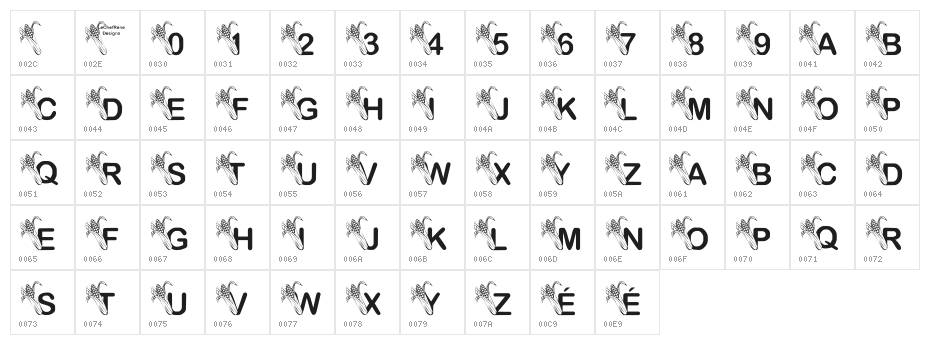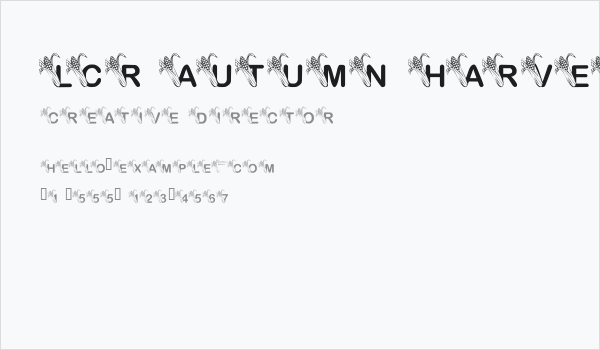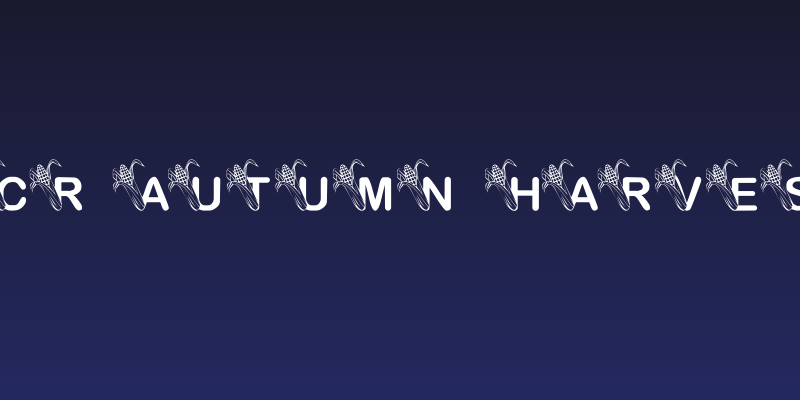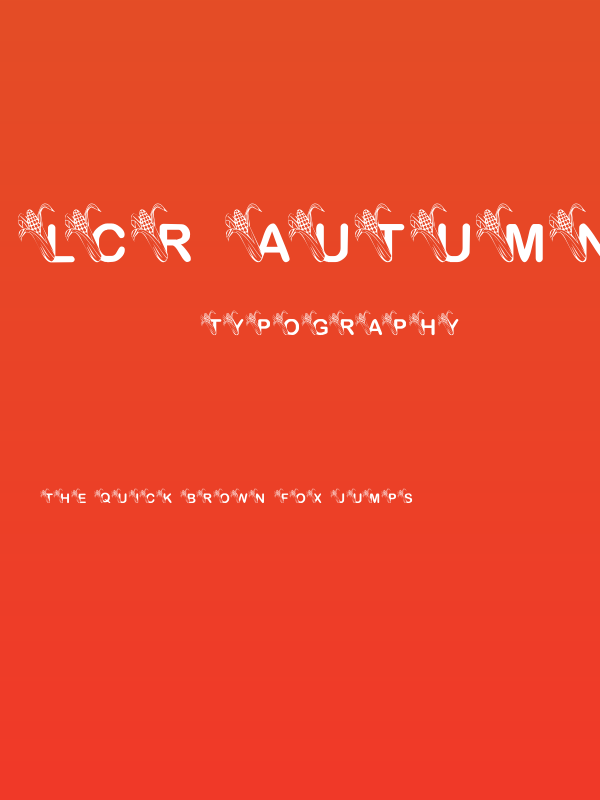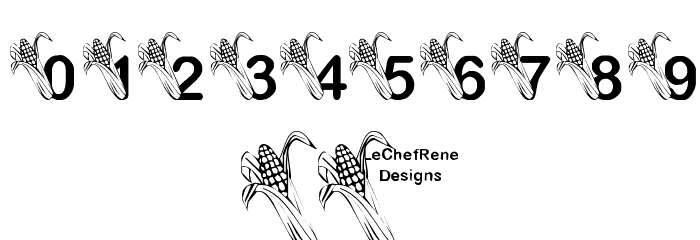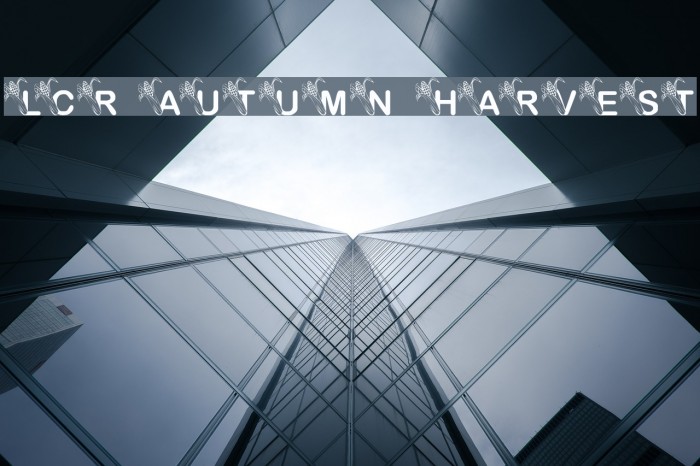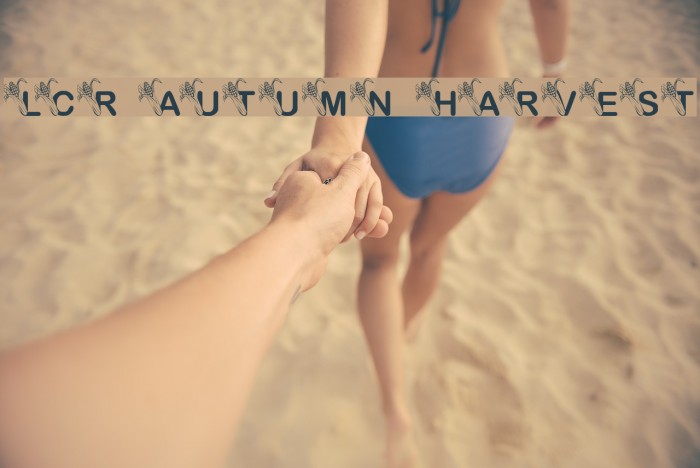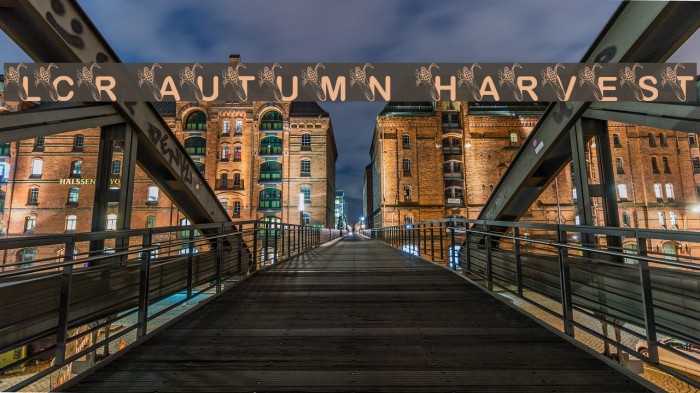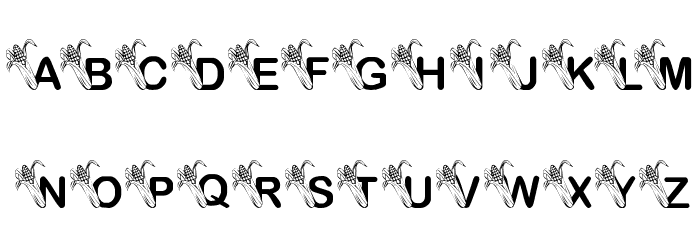
LCR Autumn Harvest Font
LCR Autumn Harvest Description
This decorative font features a unique autumn harvest theme, with each character adorned by a detailed corn motif. The letters are bold and sans-serif, providing a modern and clean look that contrasts with the intricate corn illustrations. The combination of simplicity in the letterforms and complexity in the decorative elements creates a visually striking effect. This font is perfect for seasonal designs, particularly those related to fall or harvest festivals. Its playful and thematic style makes it ideal for creative projects that require a touch of whimsy and seasonal flair.
| Proposed Projects | Ideal for seasonal greeting cards, fall festival posters, Thanksgiving invitations, and harvest-themed branding. |